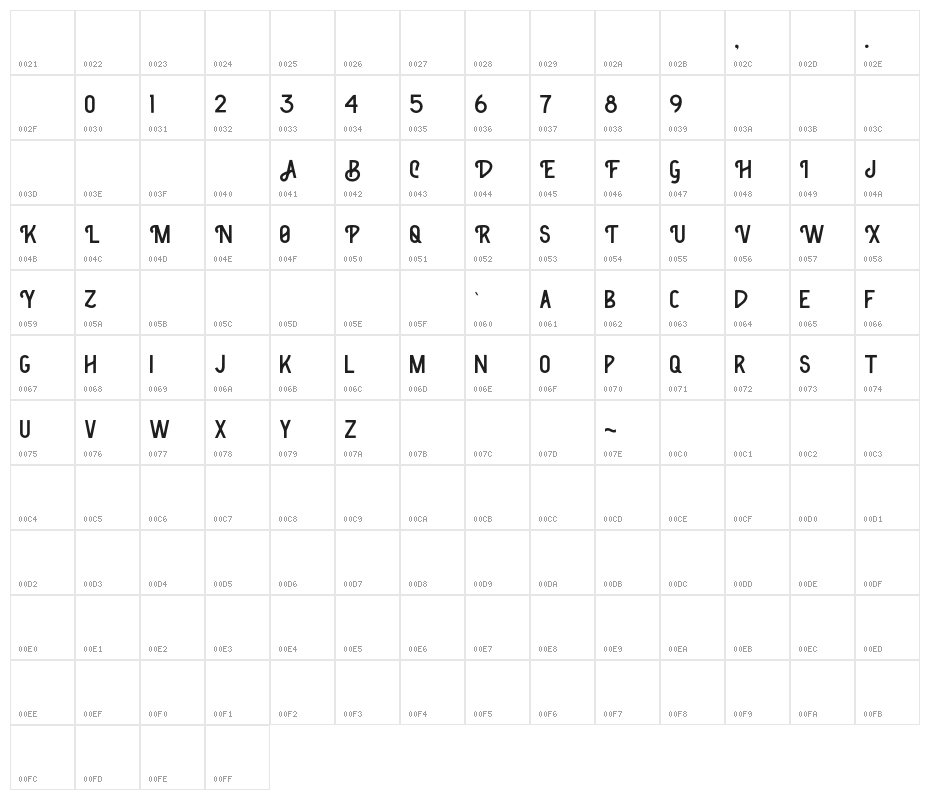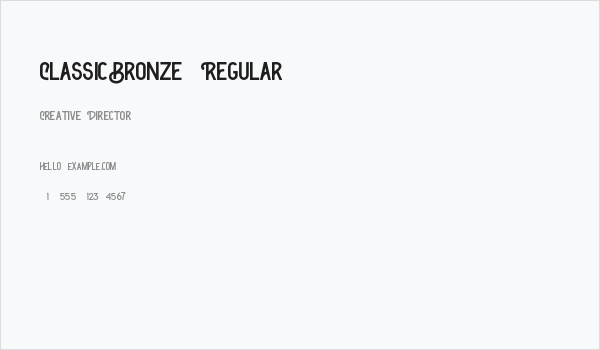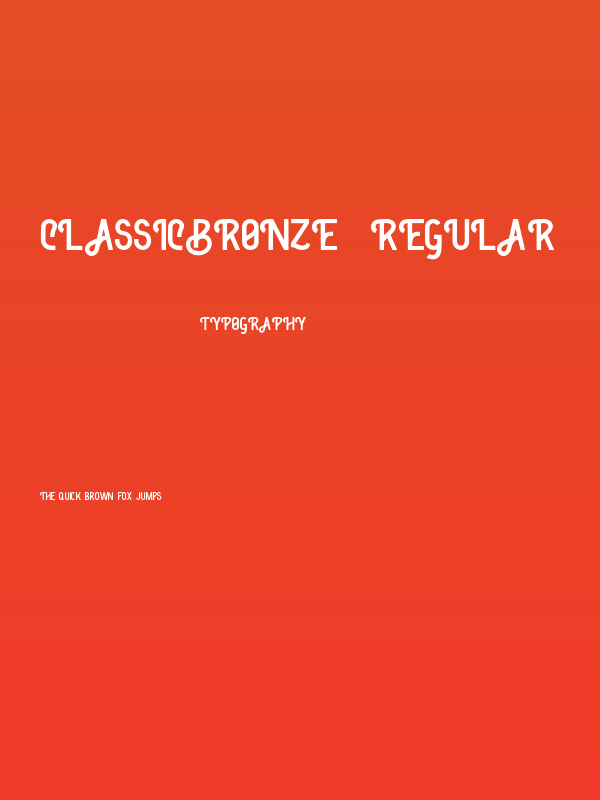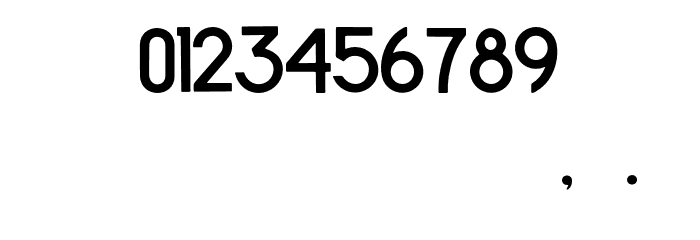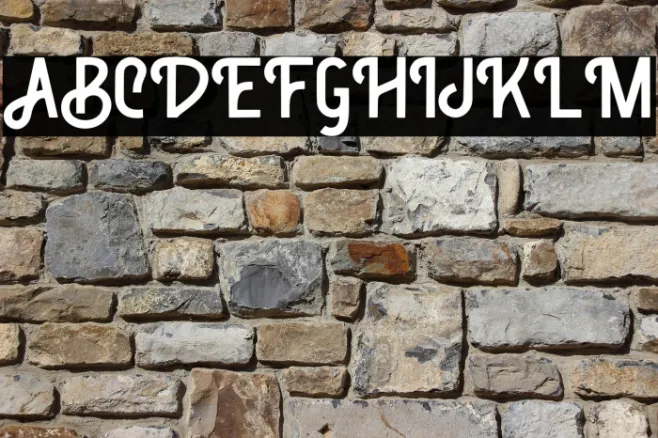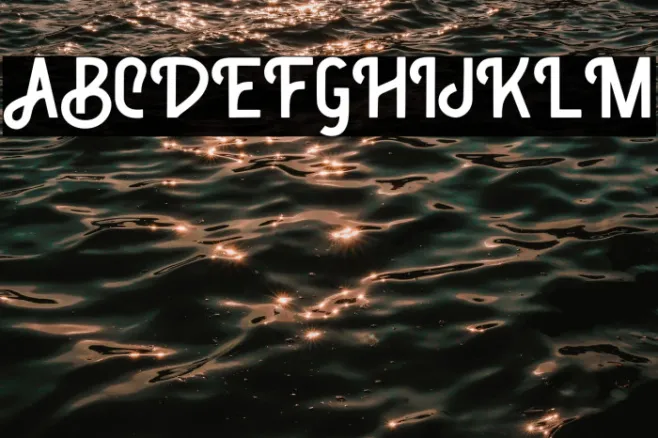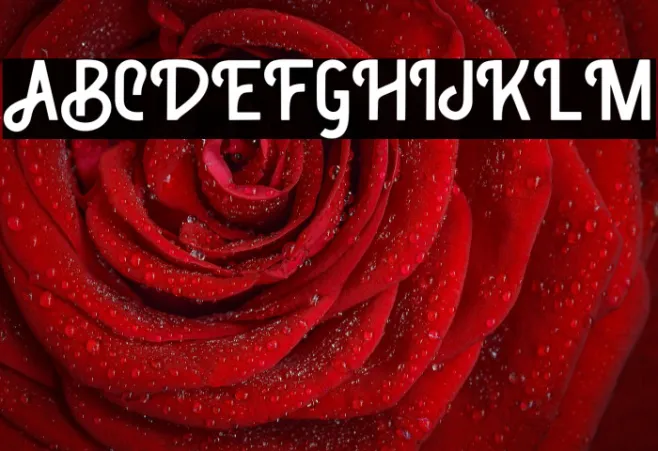
ClassicBronze-Regular Font
ClassicBronze-Regular Description
This font features a playful and decorative style with a unique blend of curves and straight lines. The uppercase letters exhibit a whimsical flair, with some characters having distinctive loops and swirls, adding a touch of elegance and creativity. The lowercase letters maintain a consistent style, complementing the uppercase with their rounded forms and smooth transitions. The numbers are bold and clear, ensuring readability while maintaining the font's overall artistic appeal. Special characters are designed to match the font's decorative nature, making it suitable for creative and expressive projects.
| Proposed Projects | Ideal for creative projects such as invitations, posters, branding, and packaging designs that require a touch of elegance and playfulness. |